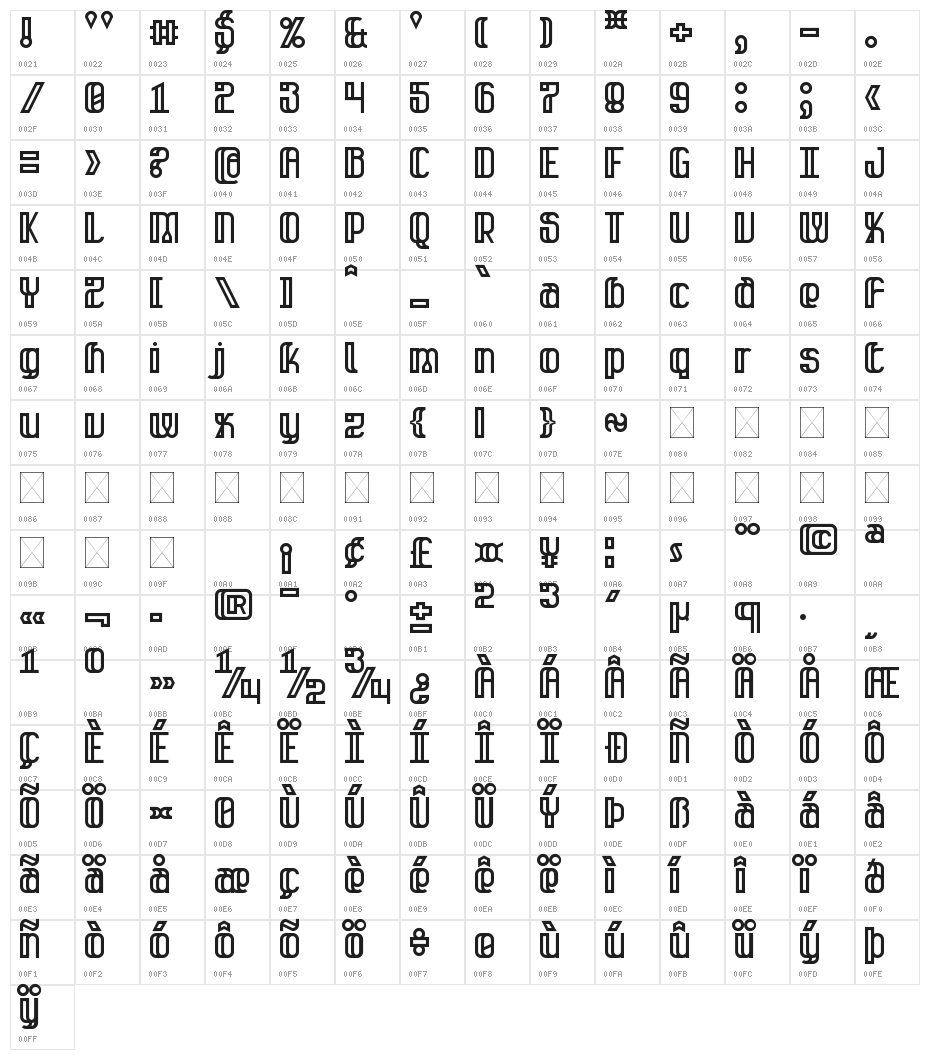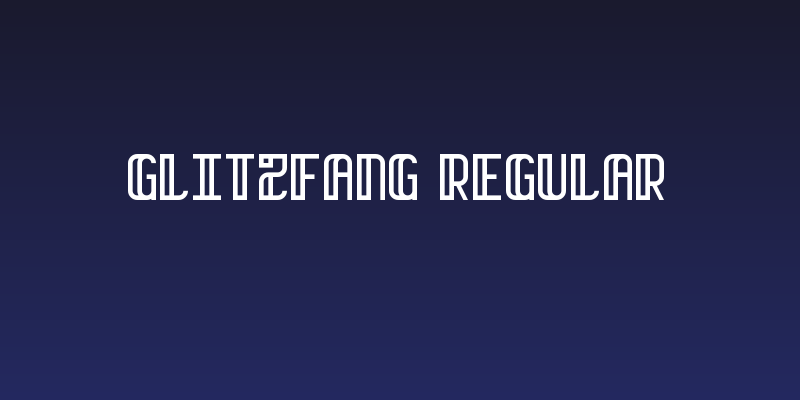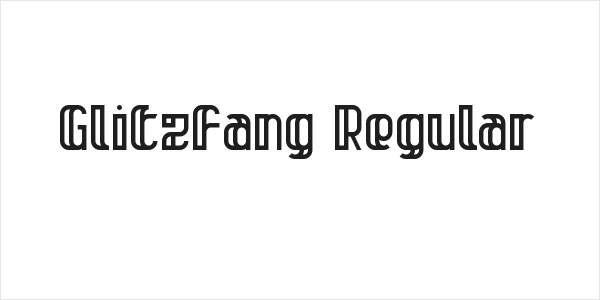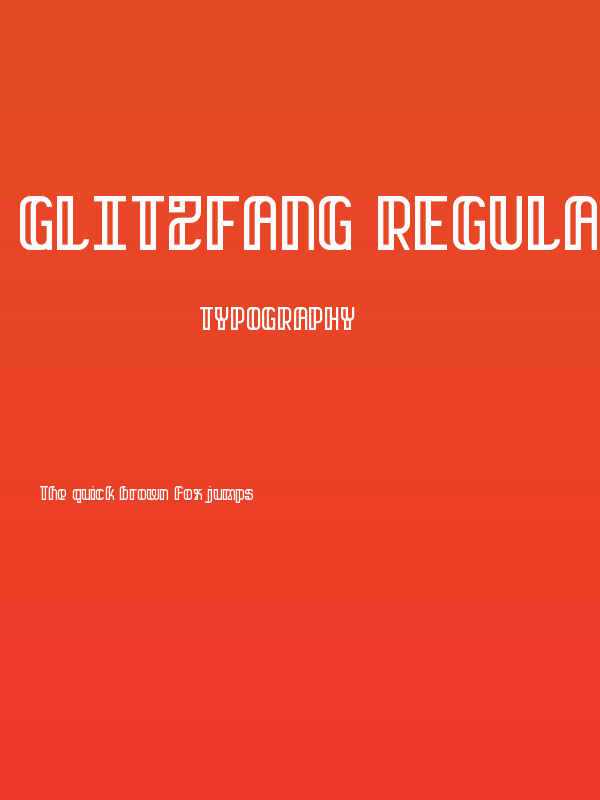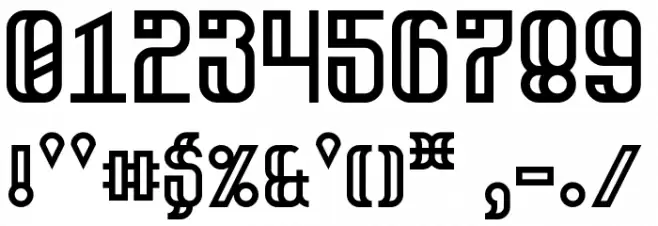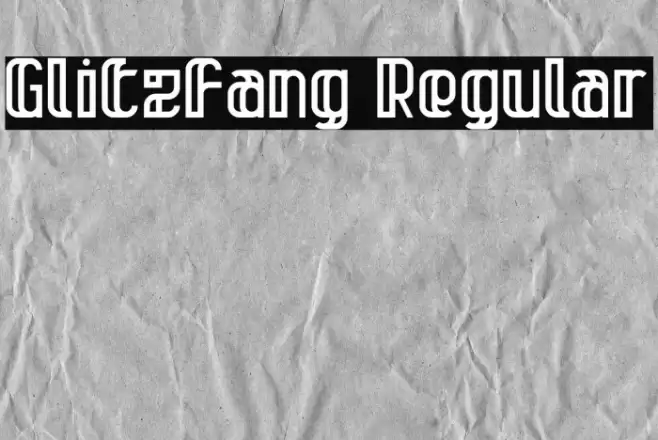
Glitzfang Regular Font
This font features a bold and decorative style with a unique geometric flair. The uppercase letters are characterized by their strong vertical lines and angular shapes, creating a sense of modernity and sophistication. The lowercase letters maintain this geometric theme, with some characters exhibiting distinctive loops and curves that add a playful touch. Numbers are bold and consistent with the overall design, ensuring readability while maintaining the font's decorative nature. Special characters are creatively designed, fitting seamlessly into the font's aesthetic. This font is ideal for projects that require a striking and memorable visual impact.
| Proposed Projects | Ideal for branding, poster design, headlines, and any project requiring a bold visual statement. |